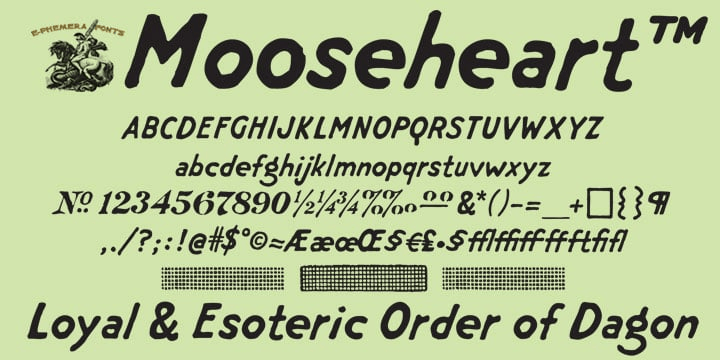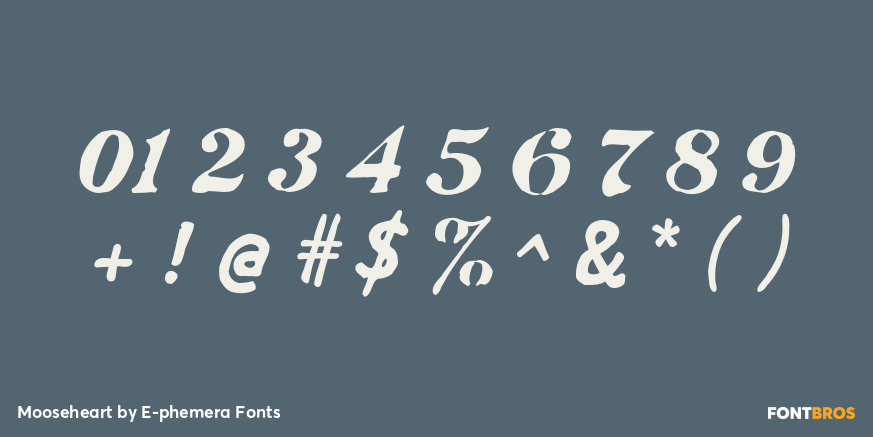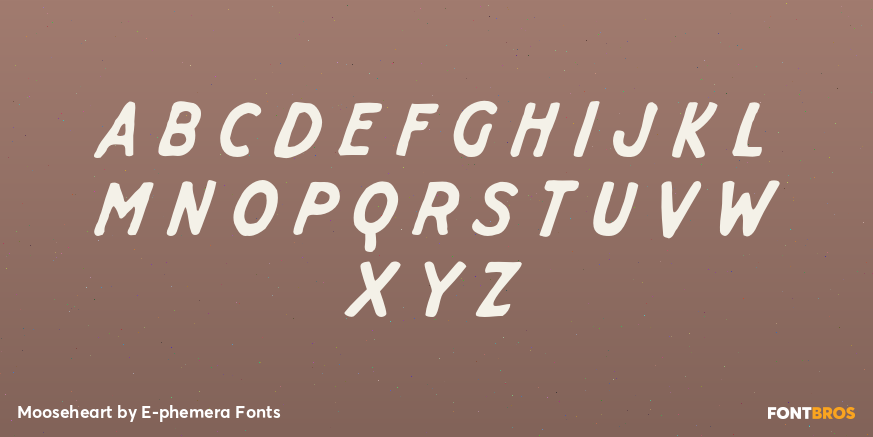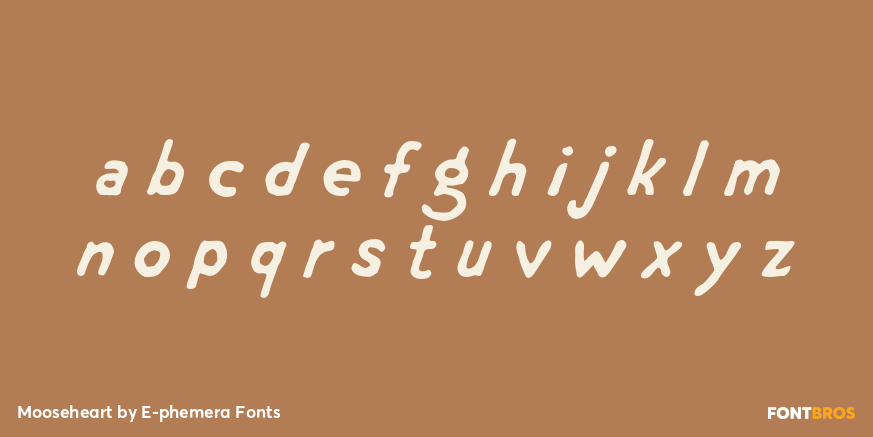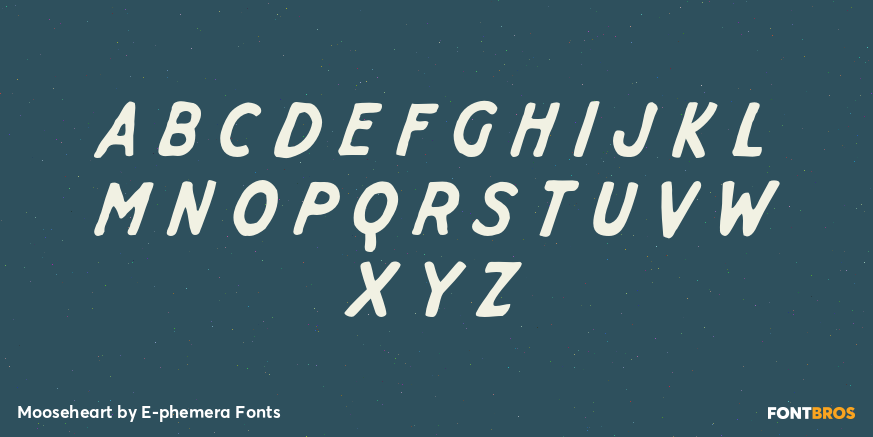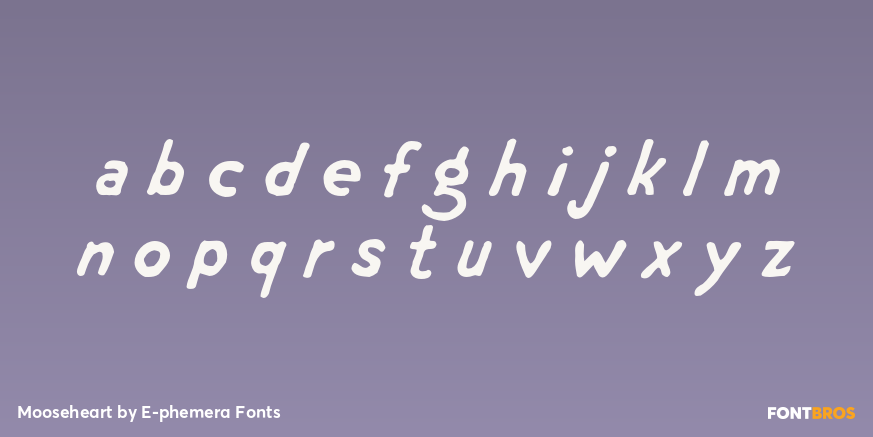
Mooseheart
Font Family by E-phemera Fonts
Mooseheart is derived from some hand lettering on a vintage membership card for a fraternal organization. It is a slightly rough and casual sans serif at a gentle oblique angle, with a comic book feel. It has numerous alternate glyphs intended for use in OpenType features to help create the feel of hand lettering, and a robust international character set. The numerals are in a contrasting style, inspired by the original source material.